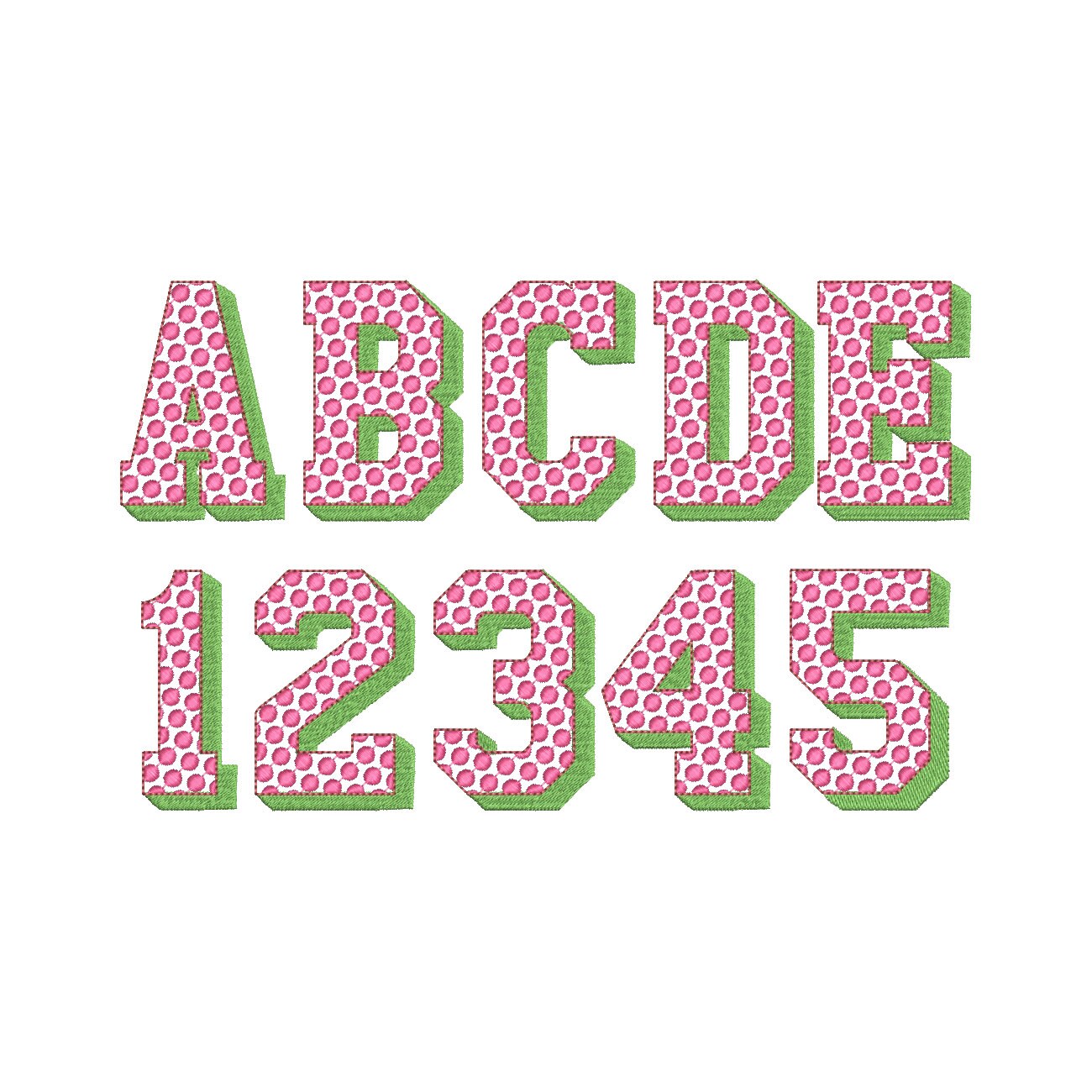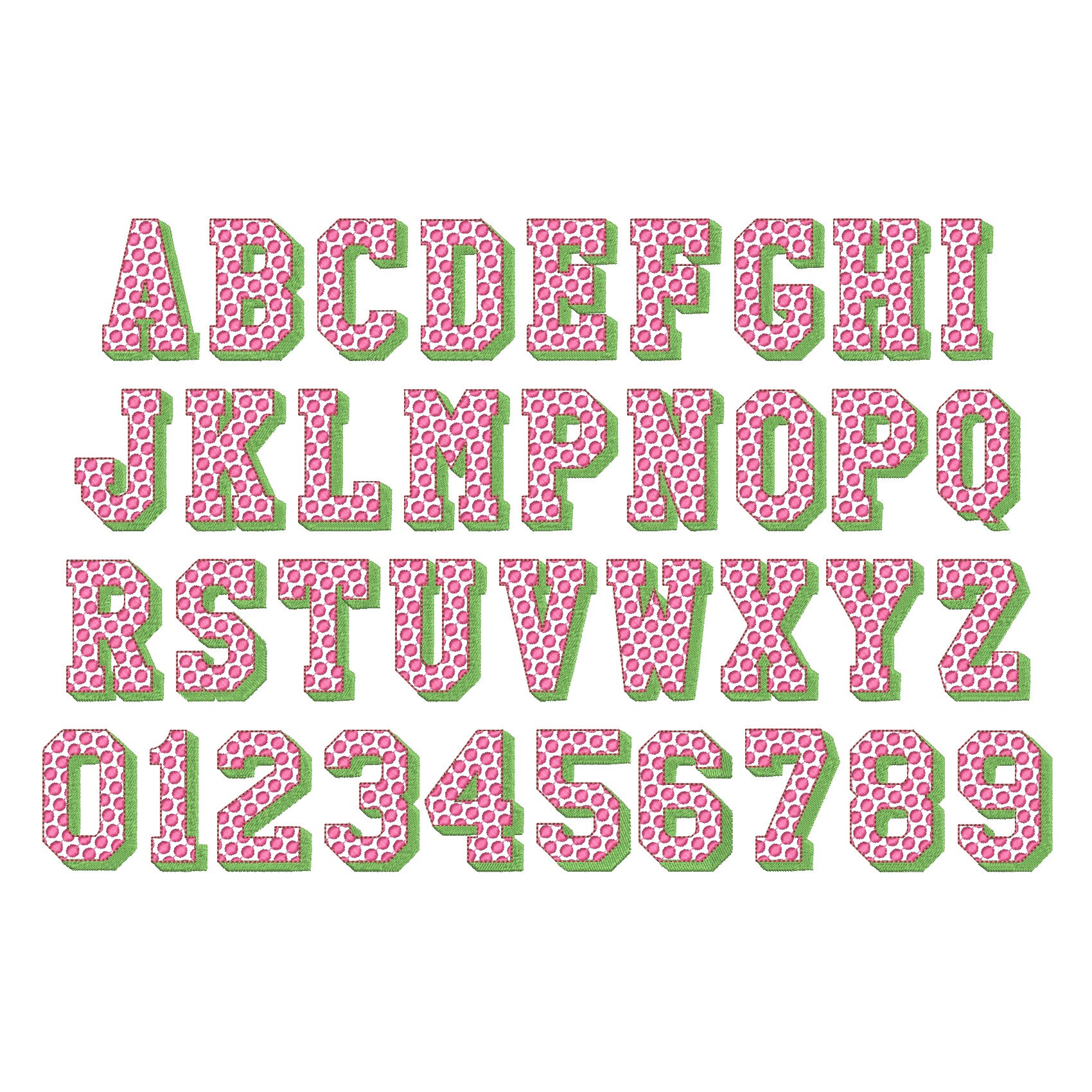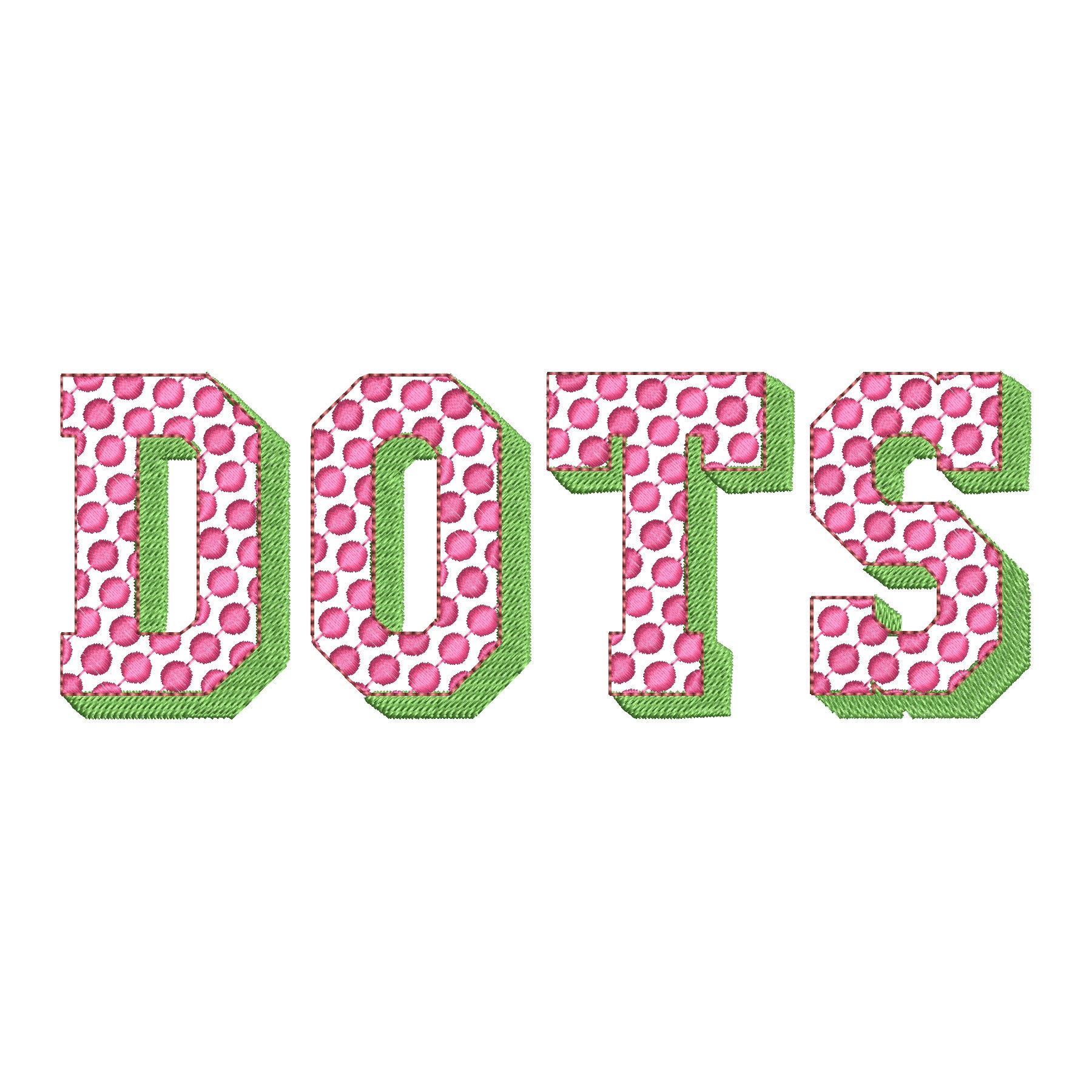
Dotted Dots Patterned Font 3 three colors Shadow Alphabet letters and numbers machine embroidery design assorted sizes block shadowed font
The font is transparent and has fill stitch dots and shadow, and a bean stitch outline.
Whole alphabet uppercase A-Z and numbers 0-9